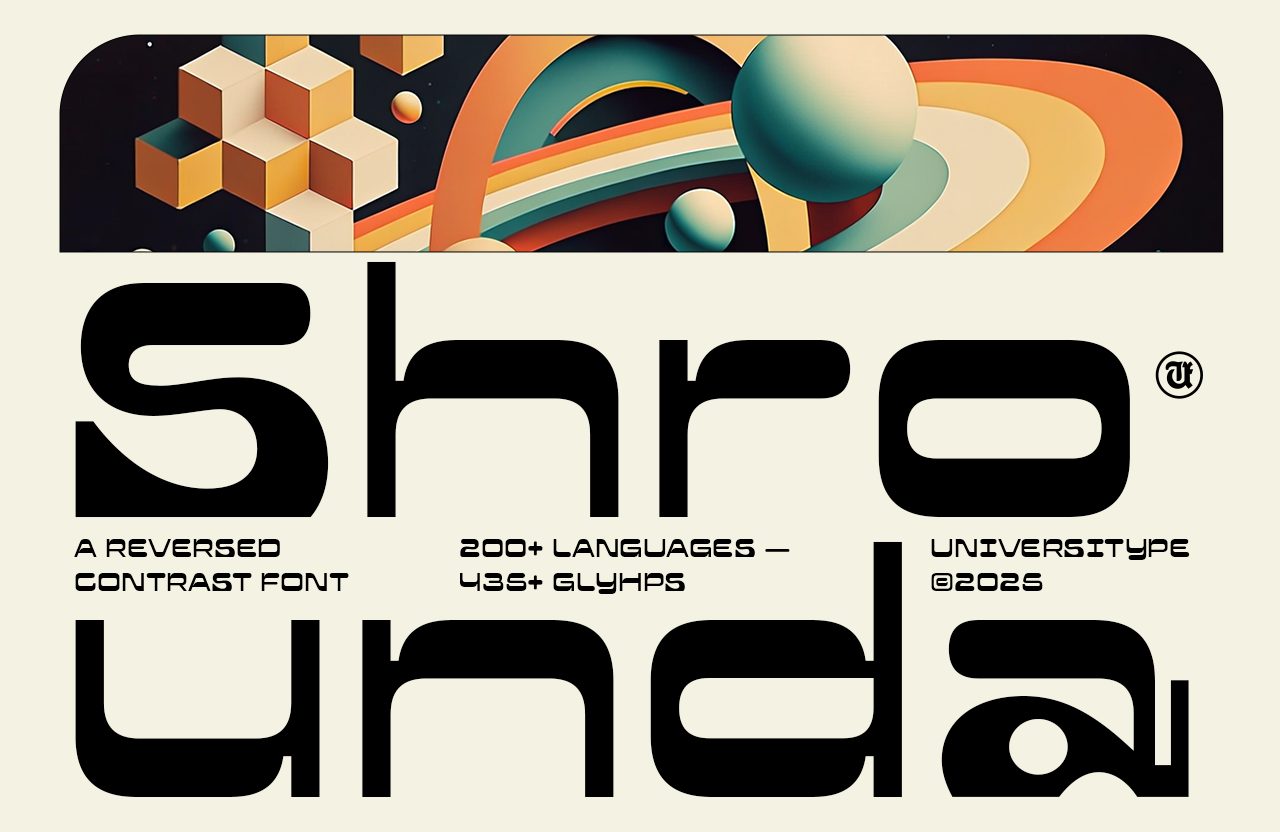
UT Shrounda - Reverse Contrast Font
UT Shrounda – Reverse Contrast Display Font
UT Shrounda is an experimental reverse-contrast display font with a bold, architectural structure. The weight is focused on horizontal strokes, creating a strong visual rhythm that feels futuristic, structured, and expressive. Its distinctive construction makes Shrounda ideal for impactful headlines, logos, and modern graphic work that needs instant character.
Designed for designers who want something unconventional yet usable.
Suitable For
- Branding and logo design
- Posters and editorial headlines
- Sci-fi, tech, and gaming visuals
- Apparel, merch, and packaging
- Web headers and landing pages
- Reverse contrast letterforms
- Strong horizontal emphasis
- Clean, architectural shapes
- High-impact display style
- Optimized for large-scale use
- Oblique
- OpenType features: ligatures, fractions, advanced numerals
- Character sets: Latin Extended A & B, Greek, math symbols, currency